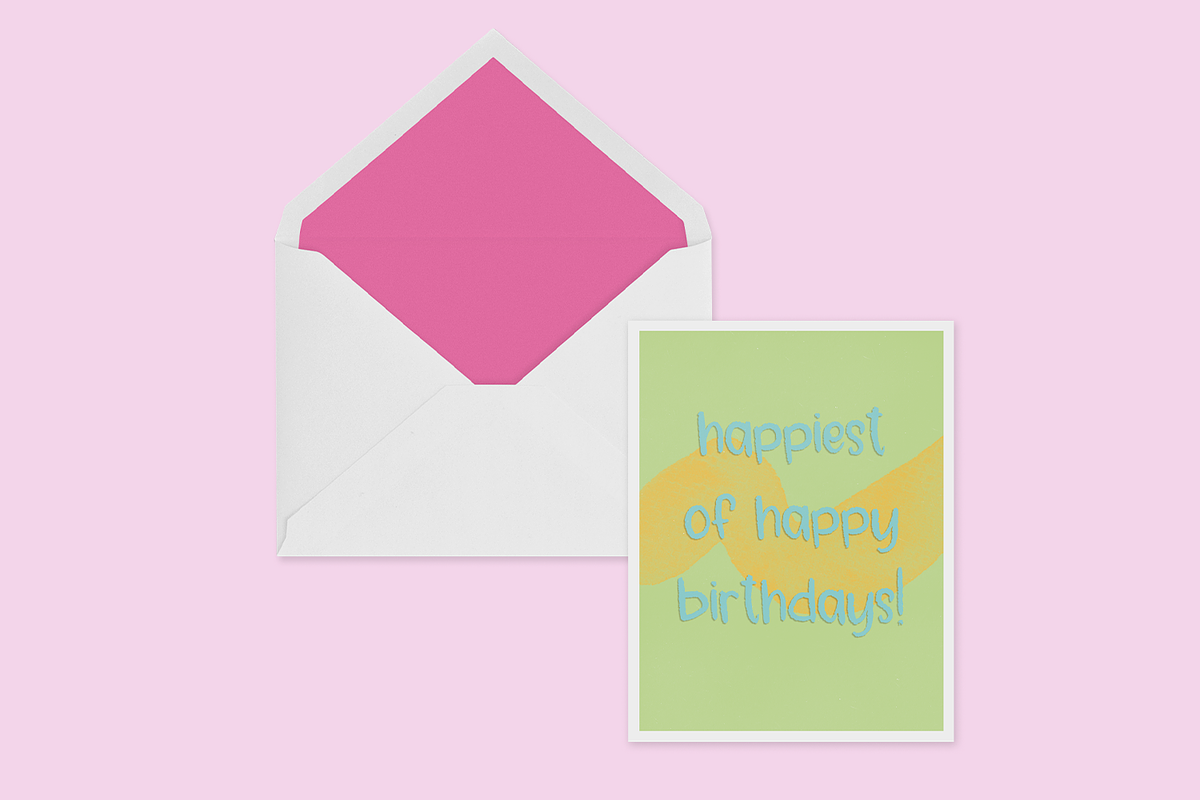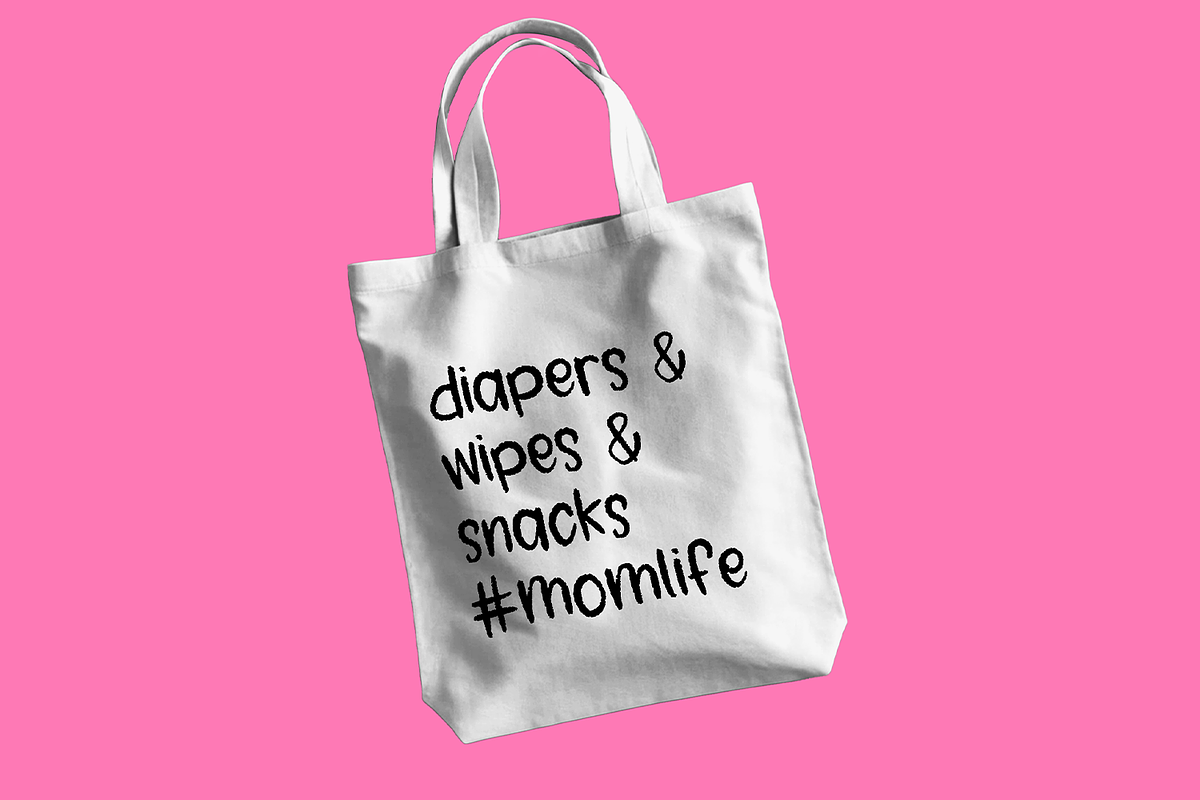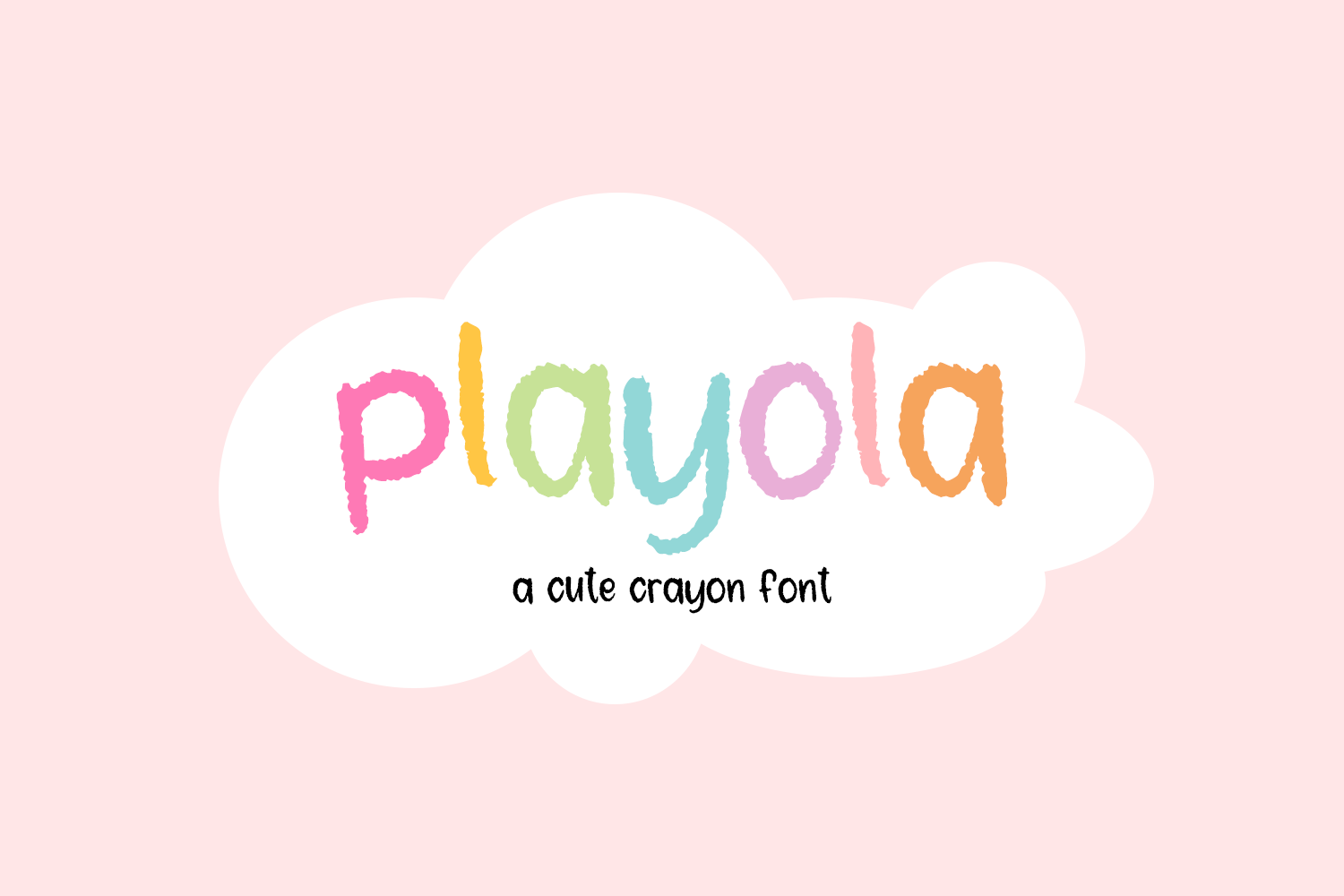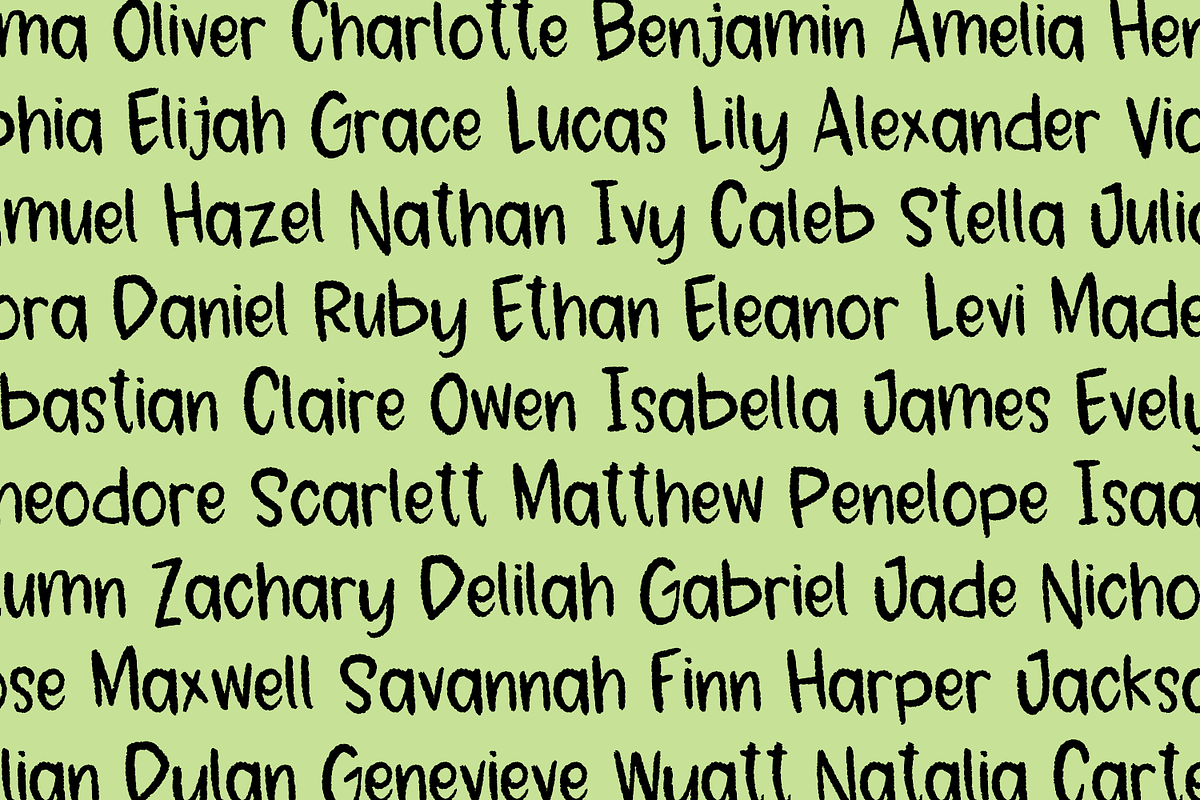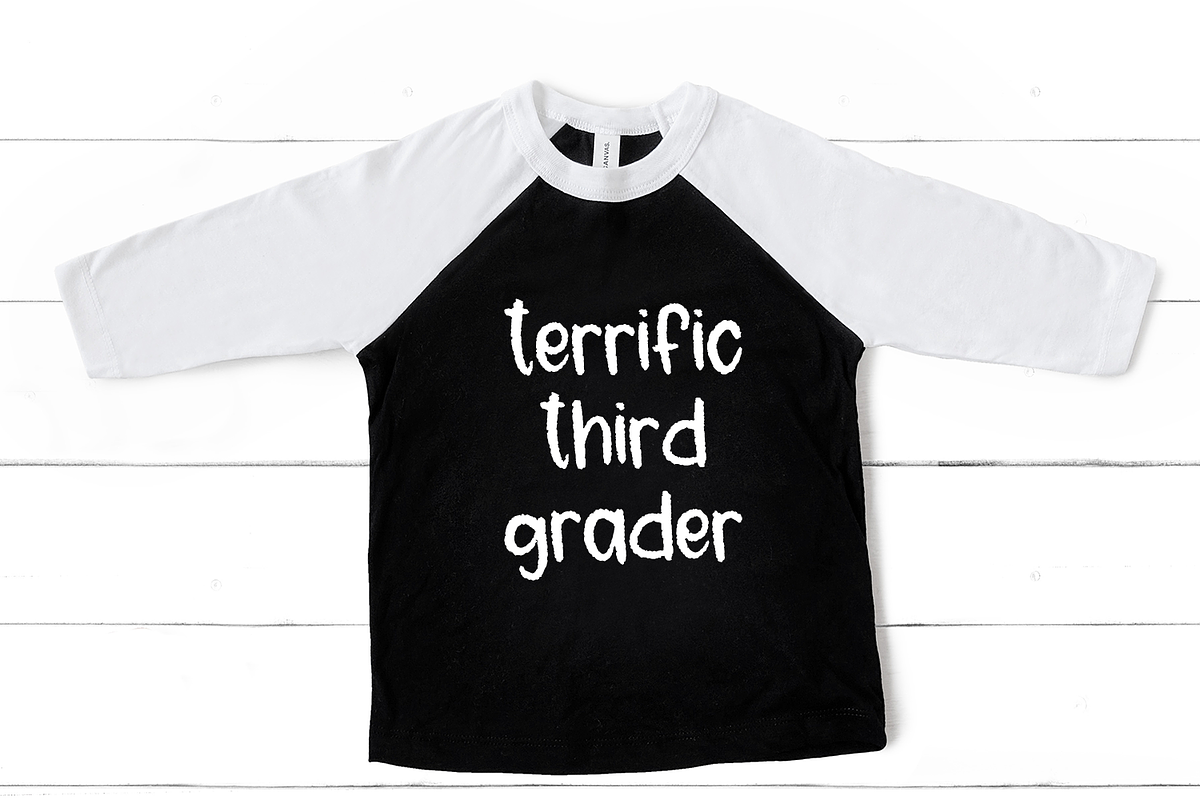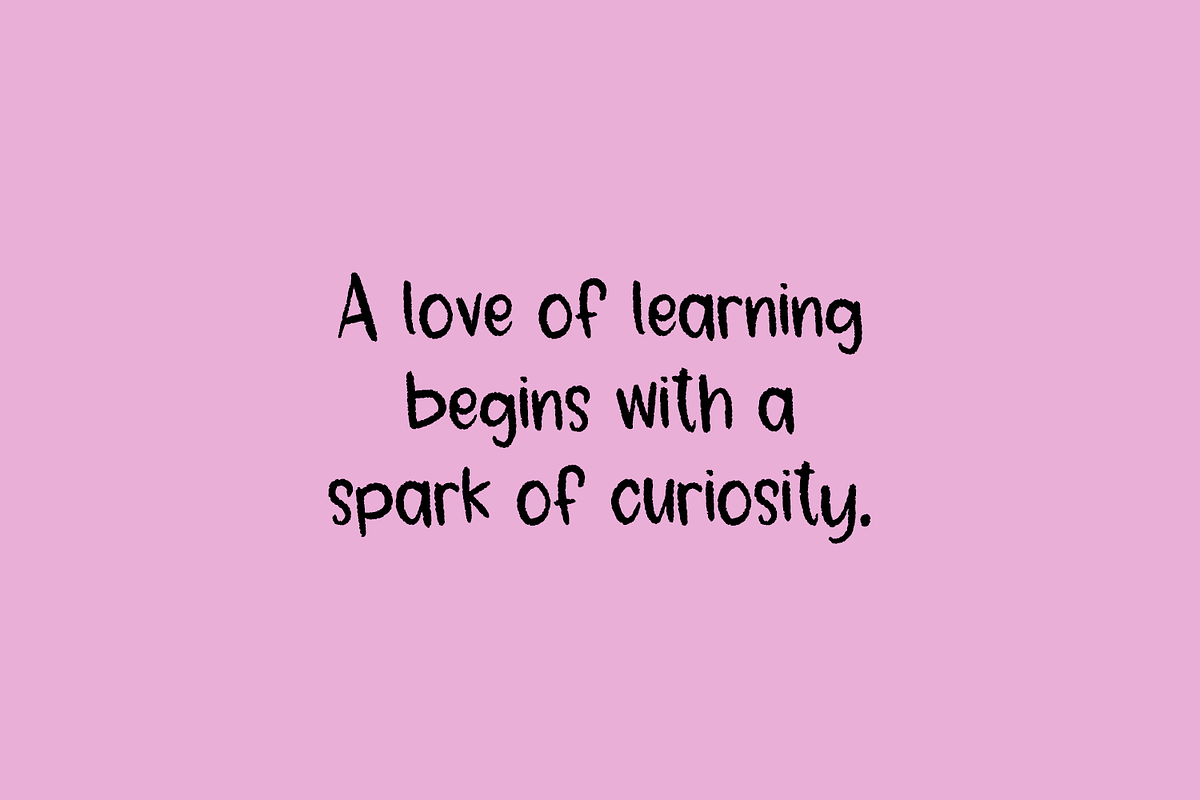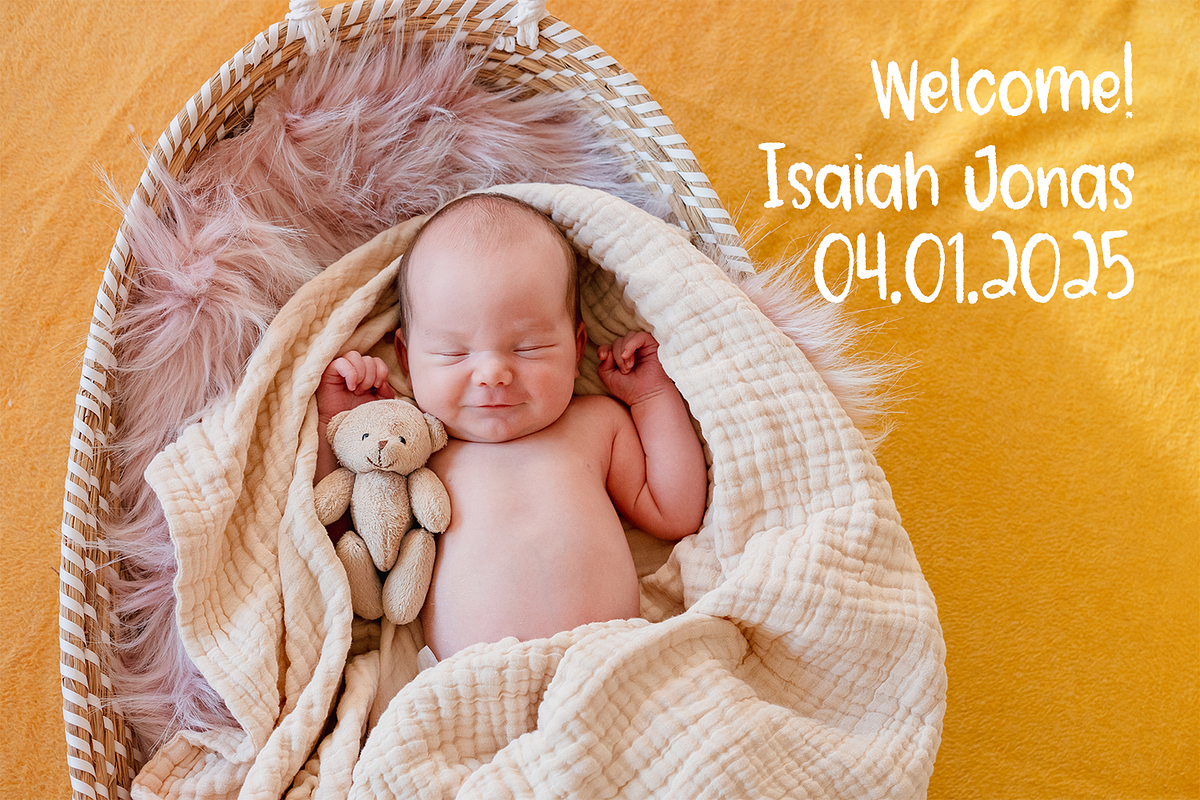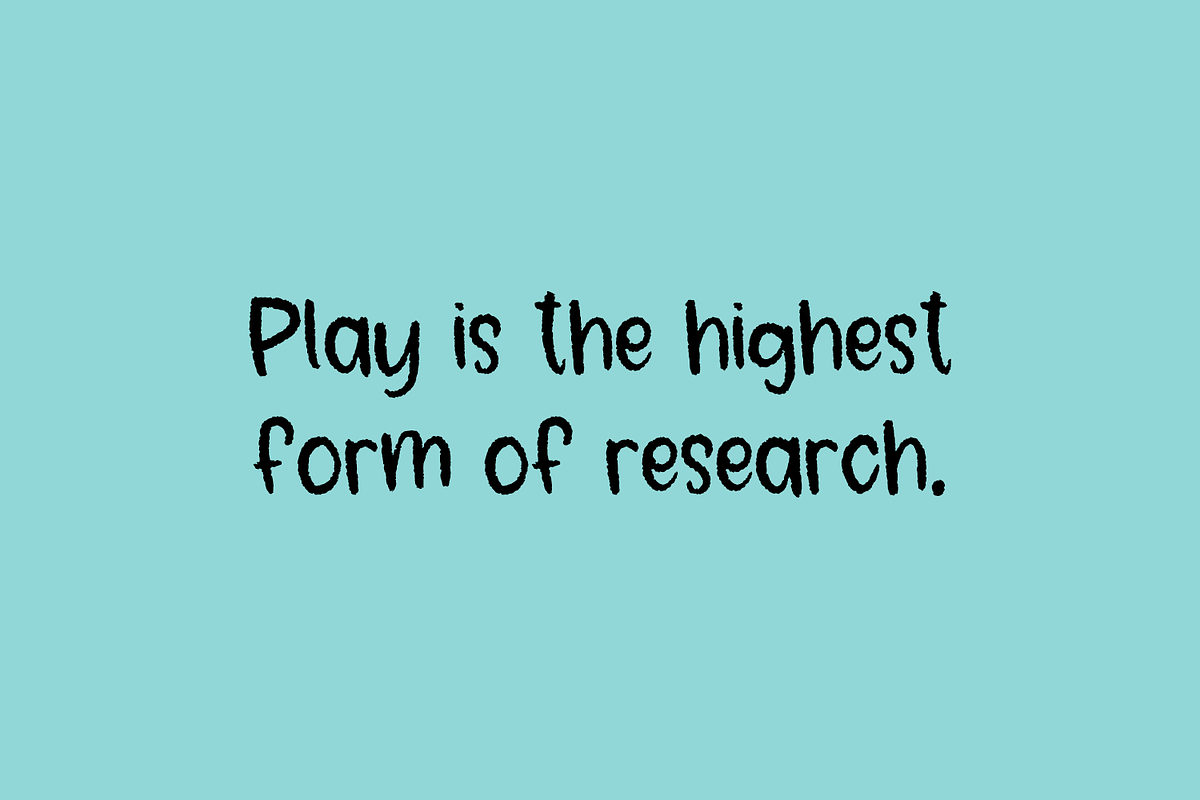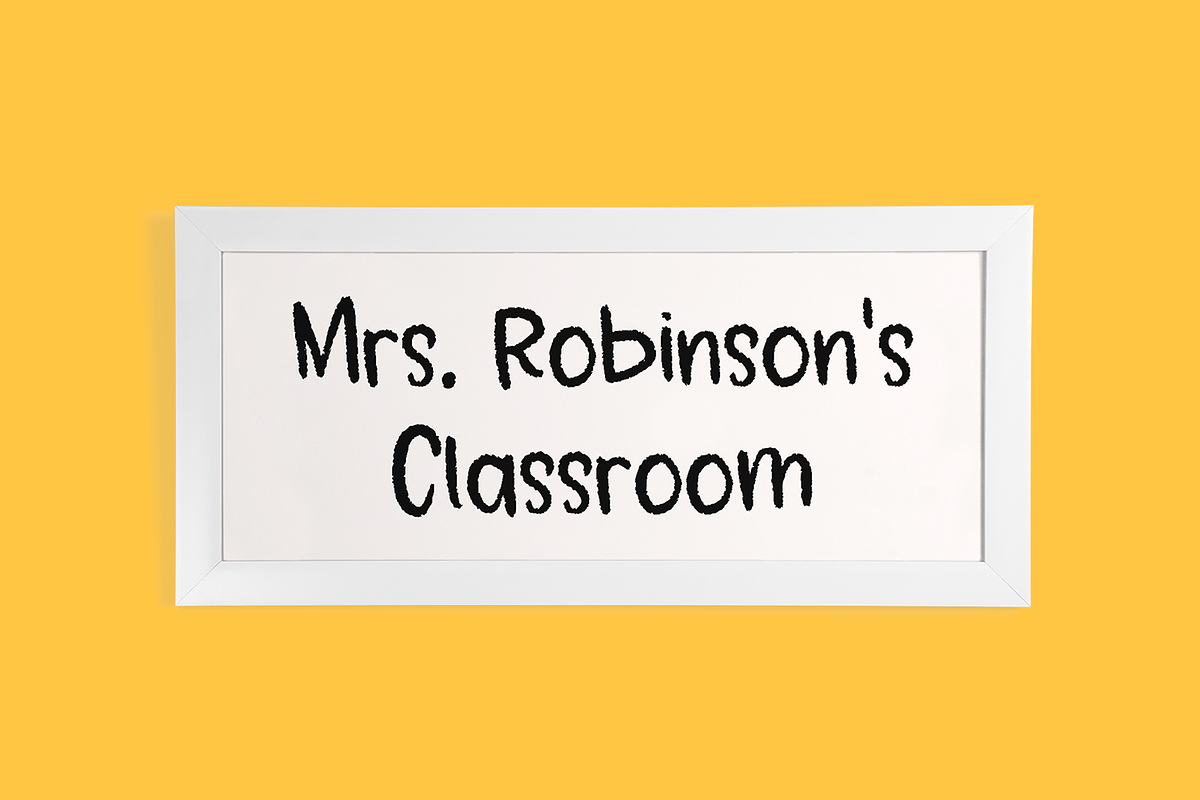
Playola Sans - Crayon Font
Say hey to Playola Sans, a cute printed font. Playola is slightly textured, similar to crayons or chalk. This font would be perfect for teachers that want to jazz up their classroom or teach penmanship skills. Playola would be an excellent fit for kid-centric branding projects, birthday parties, invitations, and more. Playola Sans is legible, so it would also be a playful touch for your digital planner in Goodnotes or Notability.
- full upper + lowercase characters
- numbers + punctuation